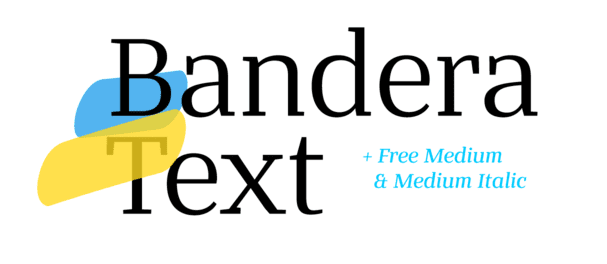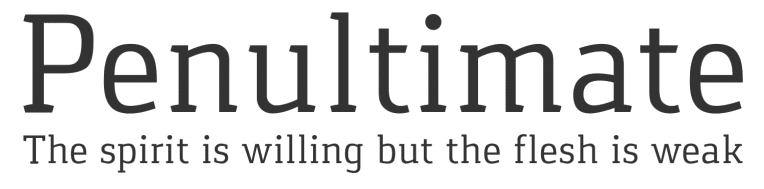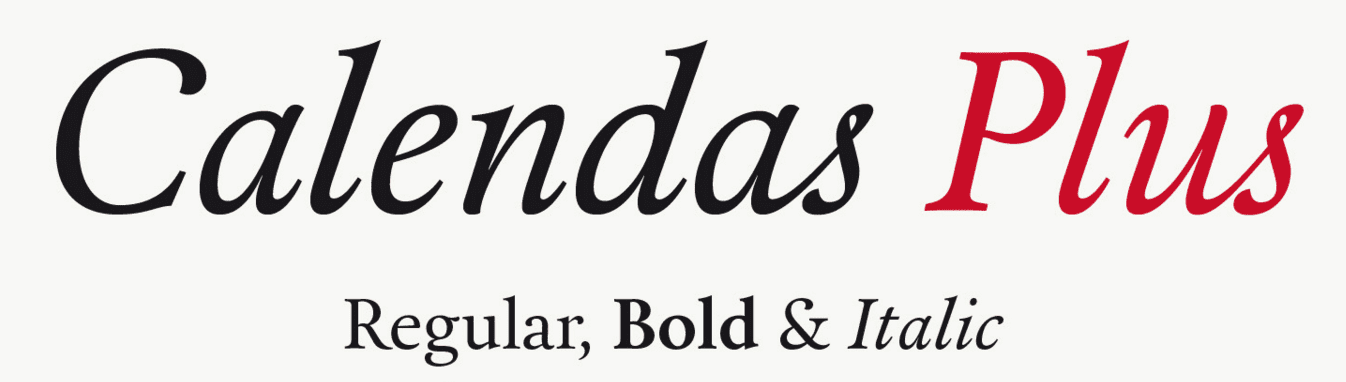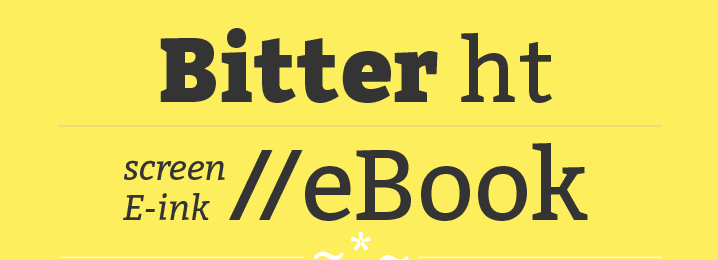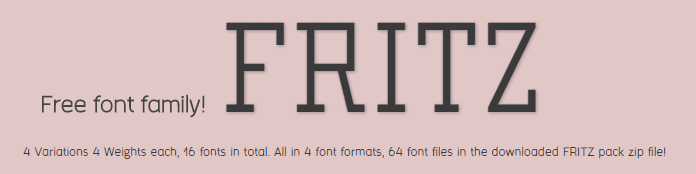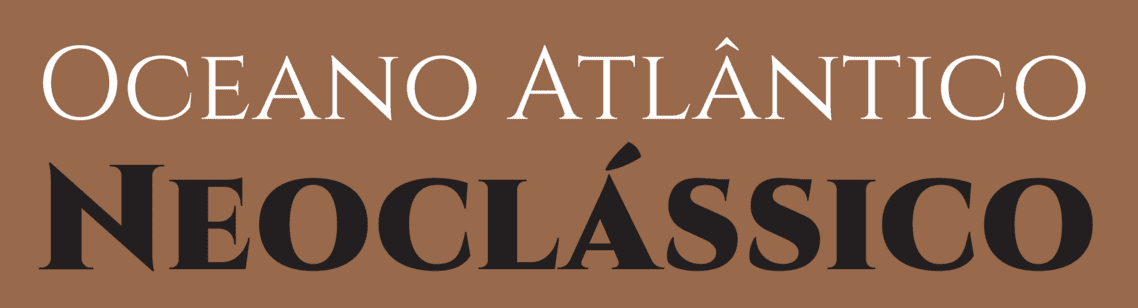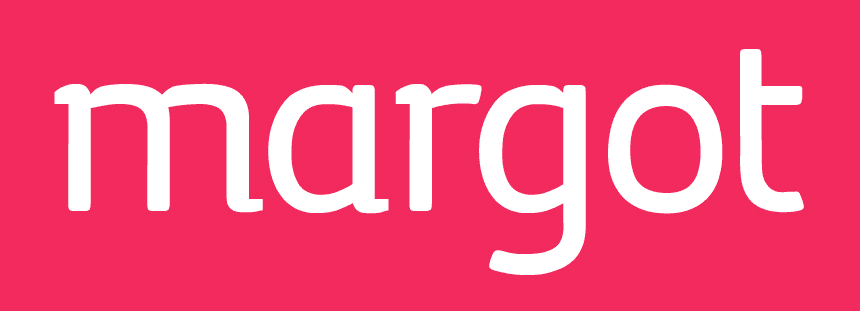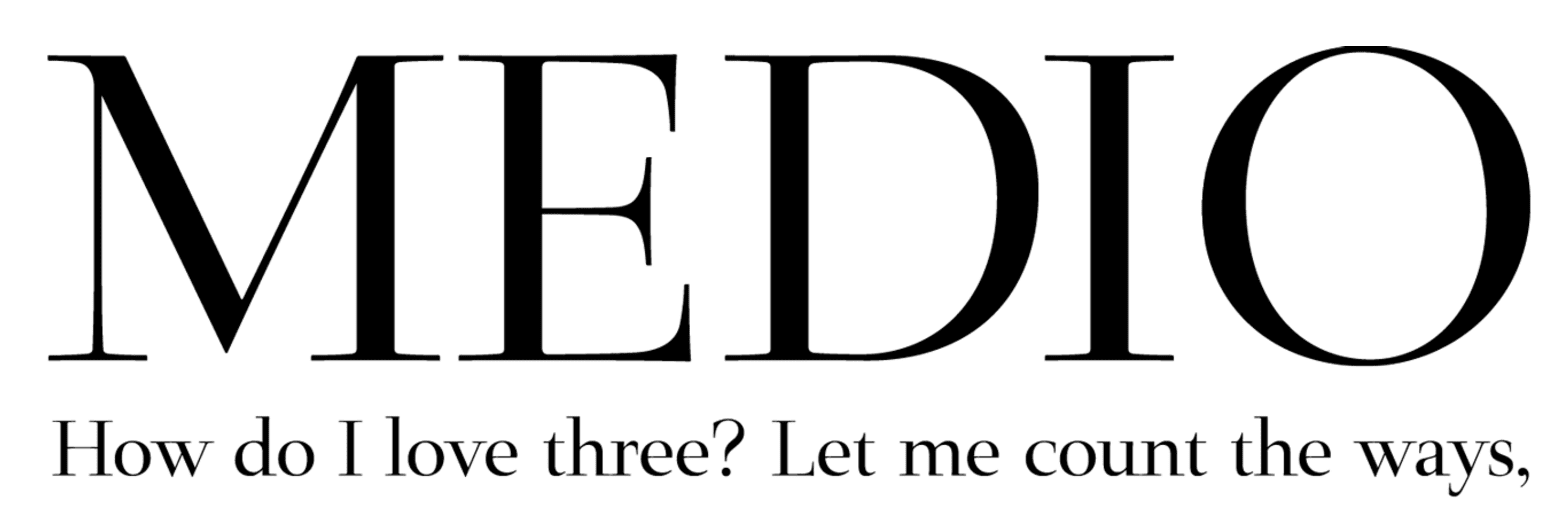
Typography is a key component of web design and the choice of which font to use on your projects, while often overlooked, can have a huge impact on how well they’re received.
Popular design wisdom establishes that different kinds of fonts are better suited for specific purposes, such as serif being better for printed works, and sans serif excelling when it comes to high-impact headlines. Today, we’re focusing on readability in web design, and as such, we’ll be covering only serif fonts, which (being more easily identified by the human eye) are considered more legible than their sans serif counterparts.
30 Incredibly Readable Serif Fonts for Your Next Web Design Project
1. Calendas Plus
The history of Calendas goes all the way back to 2010 when it was designed for (you guessed it) a calendar project. It’s a classic, elegant typeface designed to remain readable even when used in small sizes, and it’s available for free.
2. Bitter Ht
Bitter Ht is a serif font with a bold design. It was designed to be used for eBooks, which means it’s optimized for readability, even at low resolutions. The best part? It’s completely free.
3. Fritz
As you can see, Fritz is a unique serif font. Its letters boast thin stems and arms, with unbracketed serifs, giving them an eye-catching, mechanical look. The font comes in four variations with multiple weights, and it’s available in all major font formats.
4. Cinzel
Cinzel is a classic typeface inspired by the origins of the Latin alphabet, with a modern contemporary twist to its design. The font was designed specifically to be included in the Google Fonts library (so you know it’s got to be good), and it’s fully free.
5. Modum
Modum is a serif font with a contemporary feel, and happens to be the recipient of the MyFonts Font of the Month Award for April 2014, as well as boasting a Merit Award from the HiiBrand International Typography Competition.
6. Margot
While Margot works well in small prints, it shines when it comes to posters and large signages – making it perfect for big designs with an emphasis on readability. Plus, its emphasis on soft curves gives it a friendly and accessible feel.
7. Medio
Medio is an elegant serif font that combines a mix of thin and wide strikes and stems, resulting an attractive visual effect. The contrast is not so easily spotted when using small sizes, but becomes readily apparent when employing the font in titles or headings.
8. Ainslie
Ainslie is actually a ‘semi serif’ font, the first of its kind from its creators, Insigne Design. It was originally created for the Canberra Australia Centennial Typeface Competition in 2013 and is now available for sale in 42 variations (all great as far as readability is concerned) over at their website.
9. Korneuburg Slab
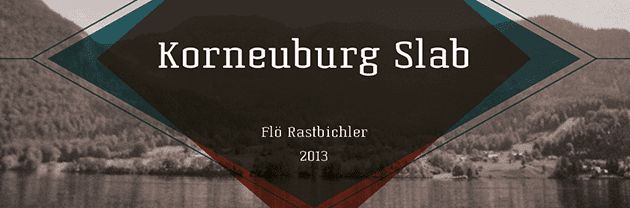
Korneuburg Slab is a softened down version of a different serif typeface, Korneuburg Display. It was made as a semester project and its design was inspired, in part, by the famous archways of Korneuburg.
10. Aleo
Aleo is a sleek slab serif font that boasts a lot of personality while still being highly readable. This free font comes in six different styles, and its bold version is well-suited for high-impact headlines and headers.
11. Klinic Slab
Yet another slab serif font, although this one was handcrafted by just one man. It comes in four different weights for a total of eight fonts, and is well-suited for both print and display design. You can obtain this font under a ‘pay what you want’ licensing deal for personal use.